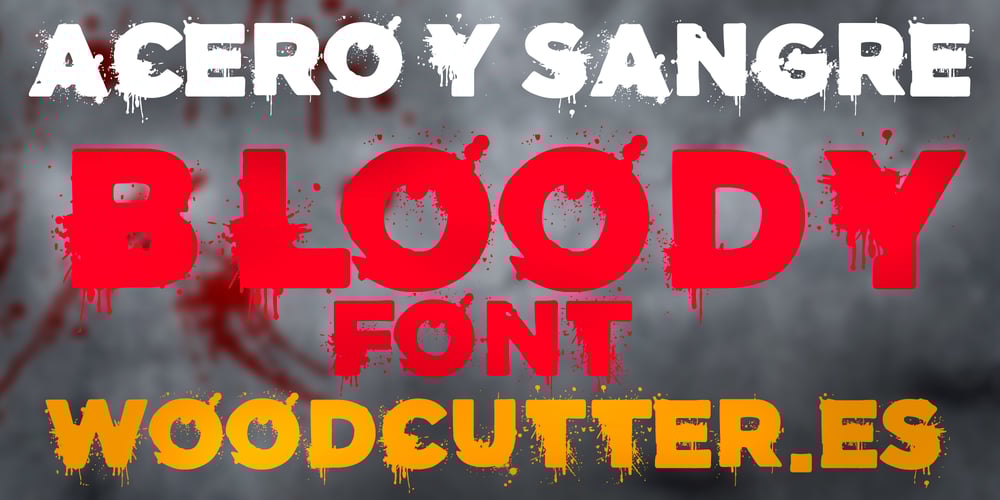
Acero y Sangre Font Family was designed by Jordi Manero and published by Woodcutter. Acero y Sangre contains 1 styles and family package options. “Acero y Sangre” is an uppercase font with a bold and aggressive design. The letters are completely stained and splattered, as if they had been hit by violent splashes of blood. This font evokes a sense of chaos and brutality, making it perfect for horror movie titles, bloody video games, or any graphic project that aims to convey violence and drama. The irregular stains on each character add a visceral and raw touch, making “Acero y Sangre” ideal for dark and unsettling designs.